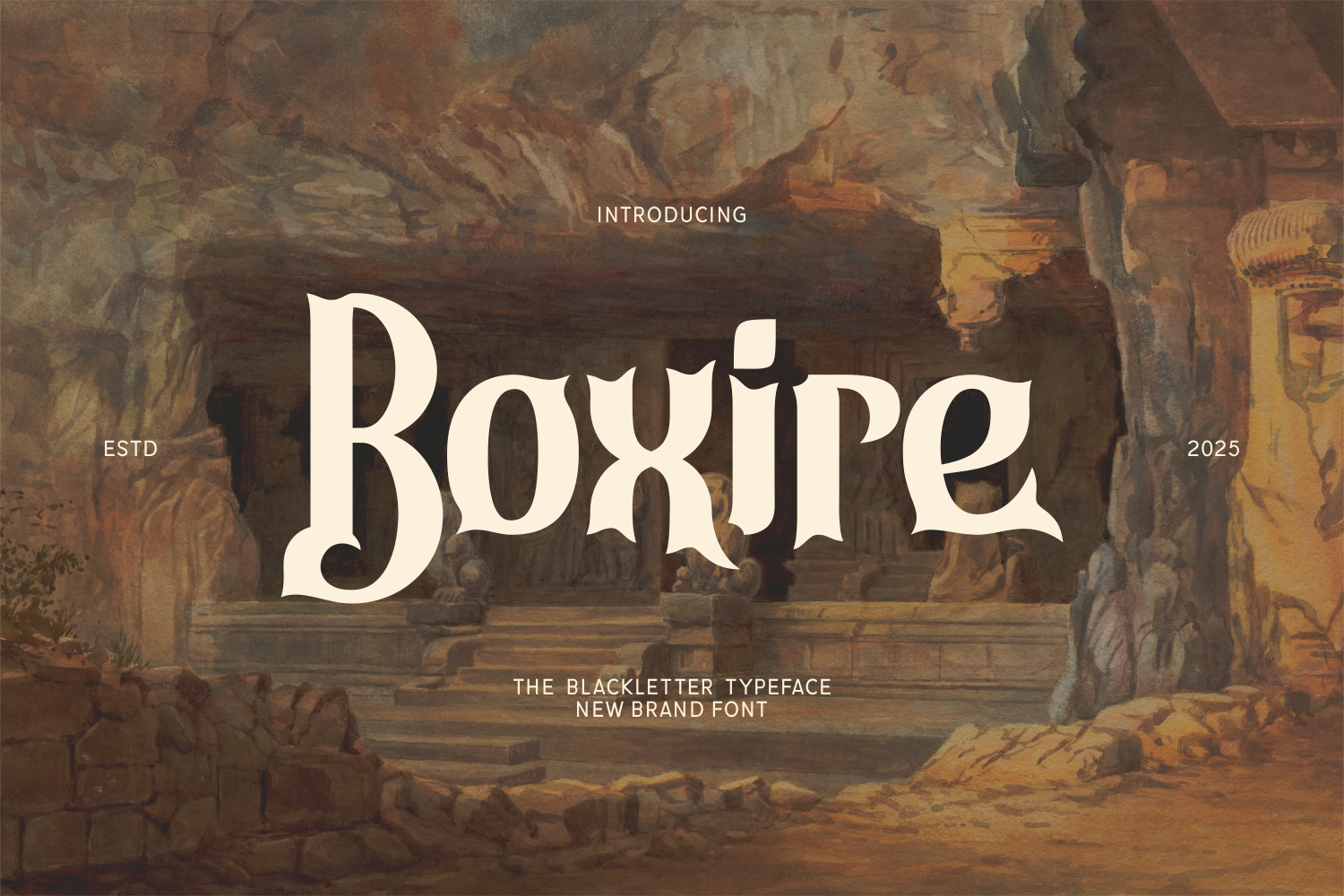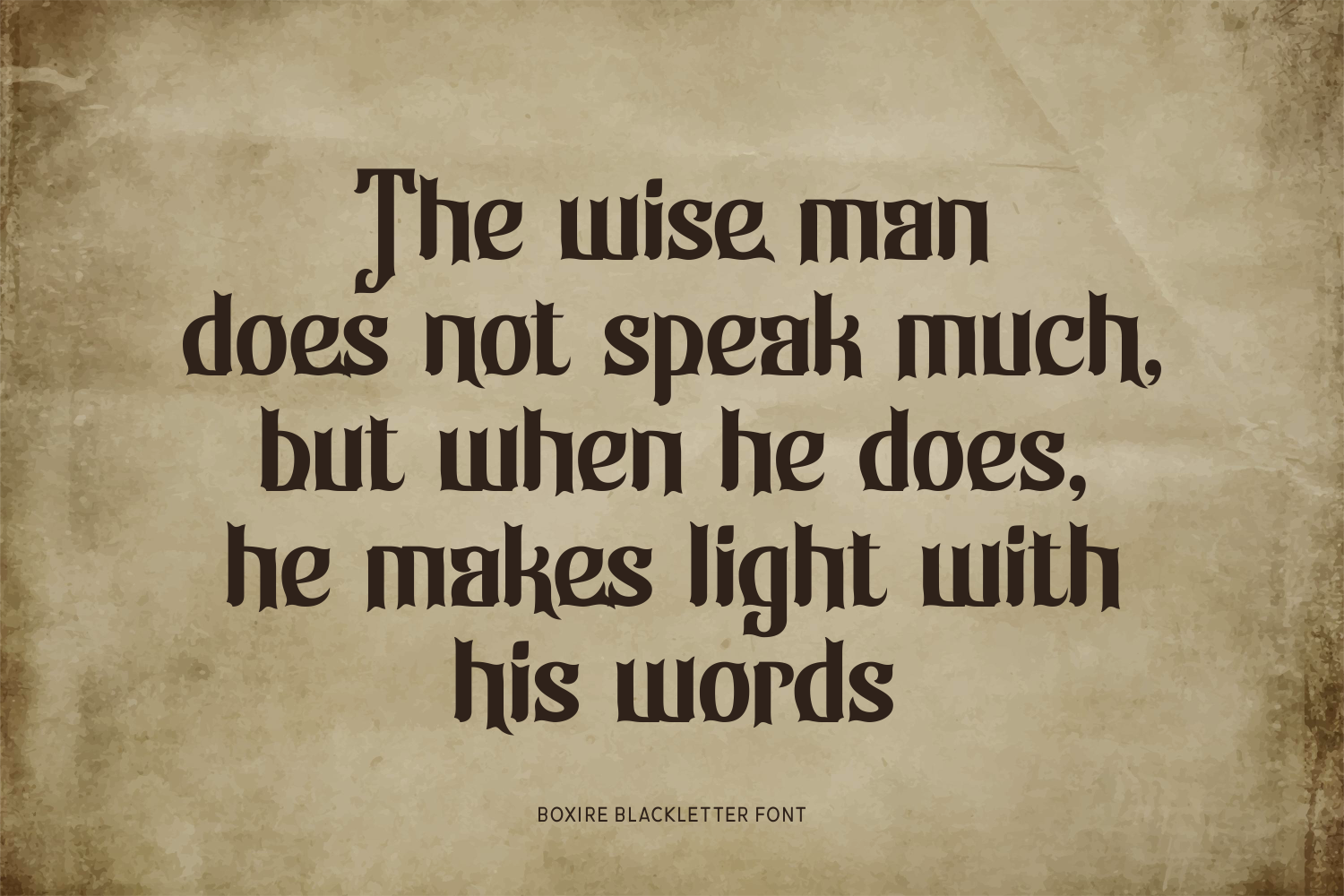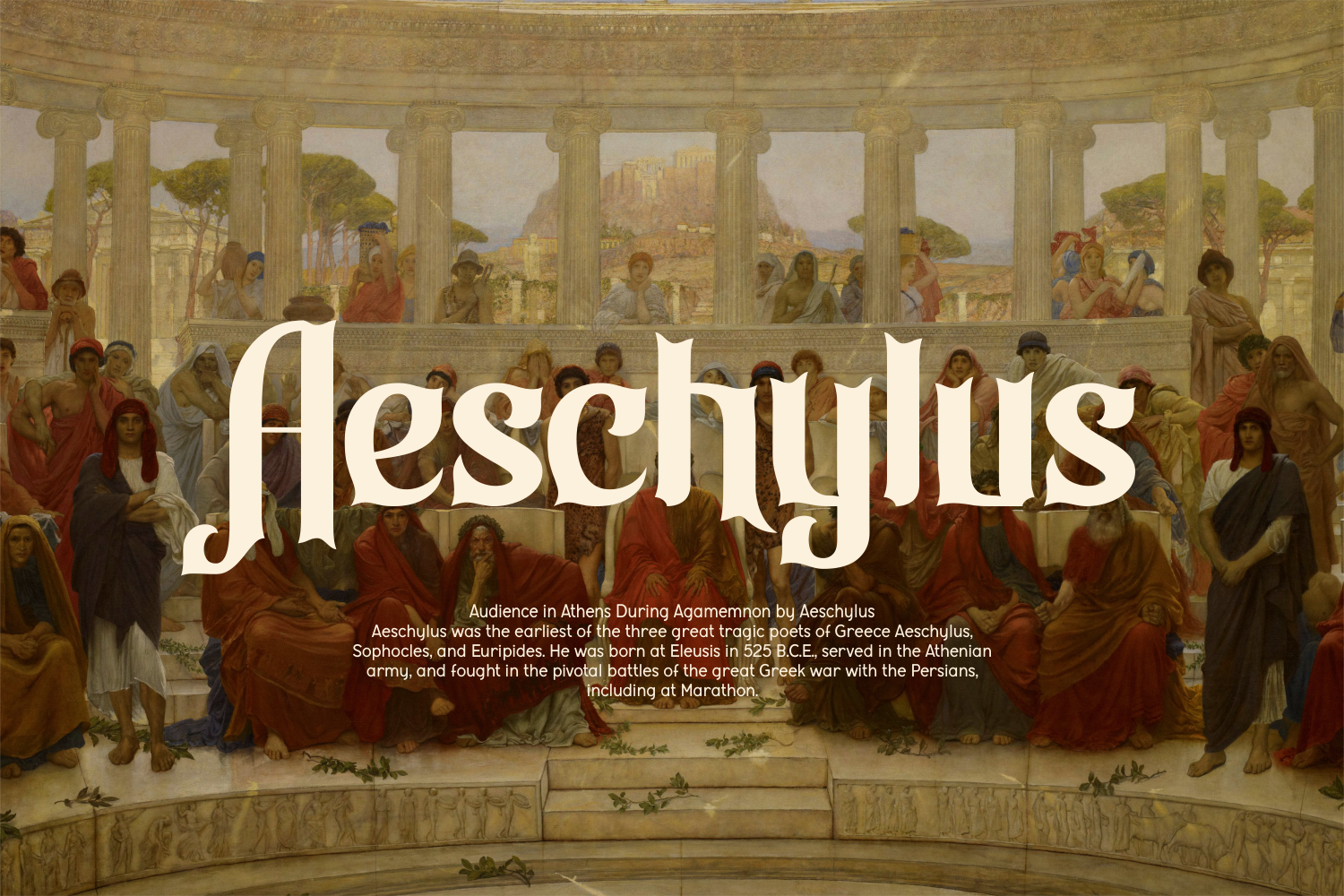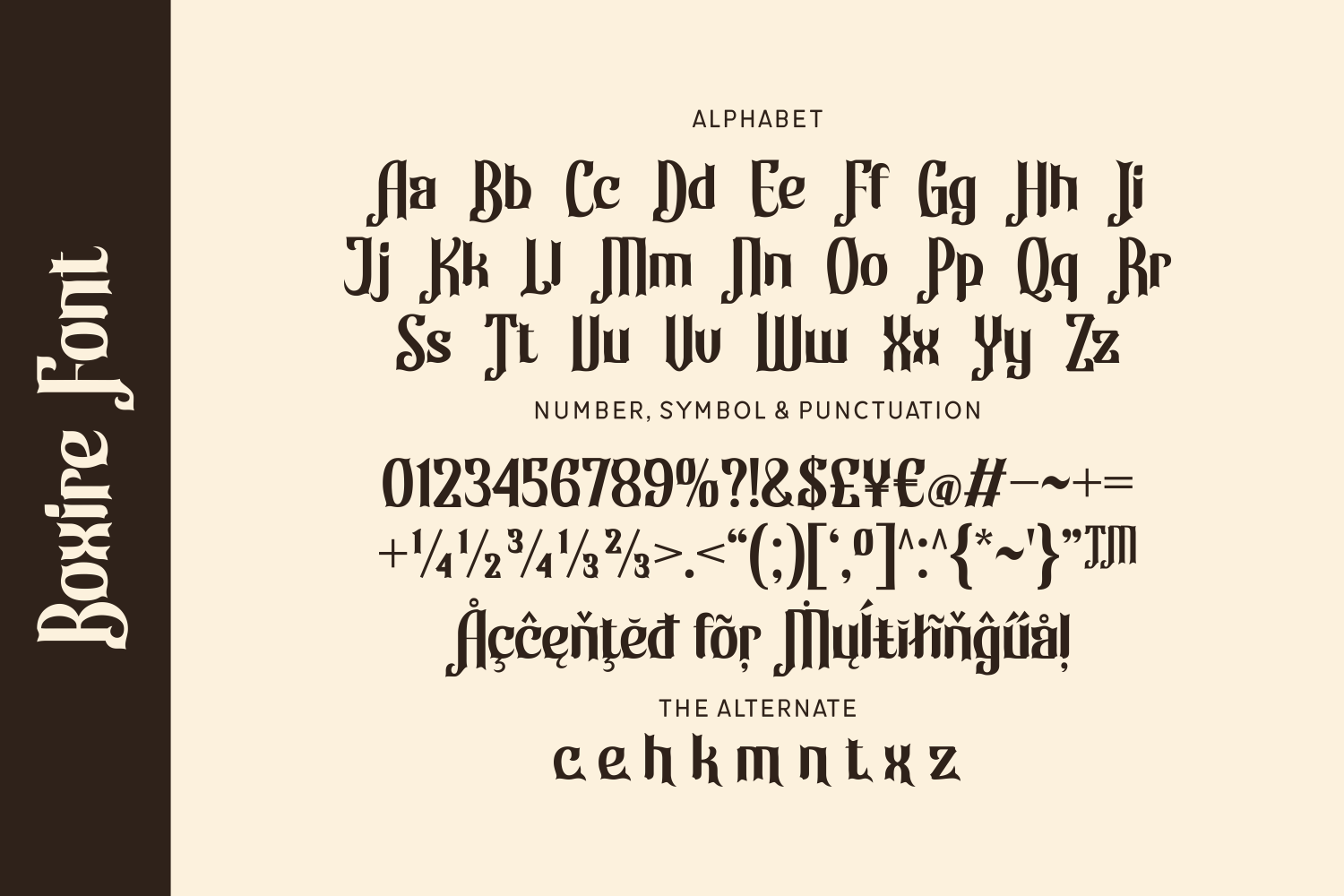
Boxire is a refined blackletter typeface that merges medieval elegance with modern clarity. Its sharp serifs, balanced curves, and clean structure give it a timeless presence—perfect for branding, editorial designs, packaging, or fantasy-inspired titles. Boxire brings heritage and sophistication together, making every word look bold, intentional, and artfully crafted.